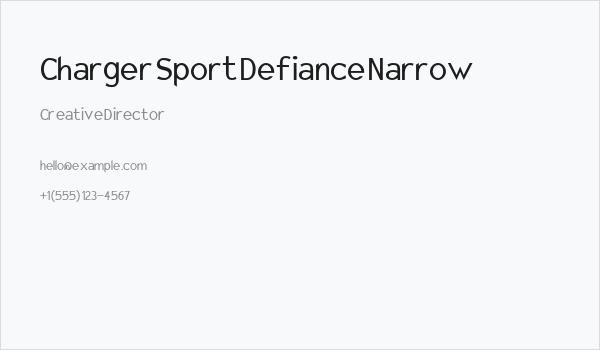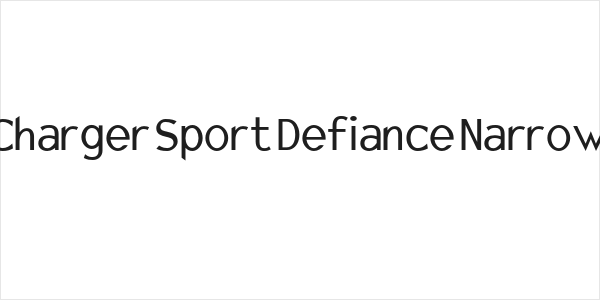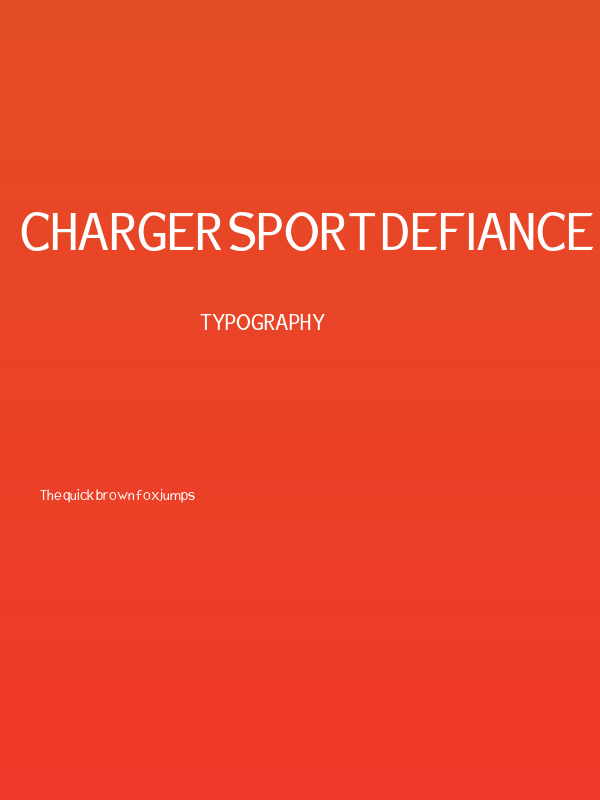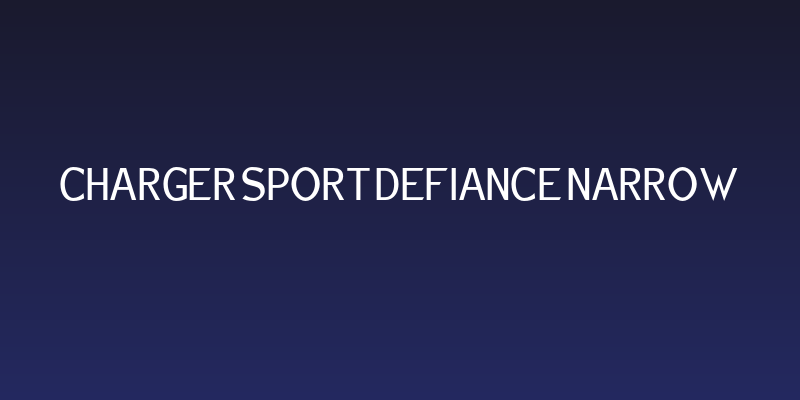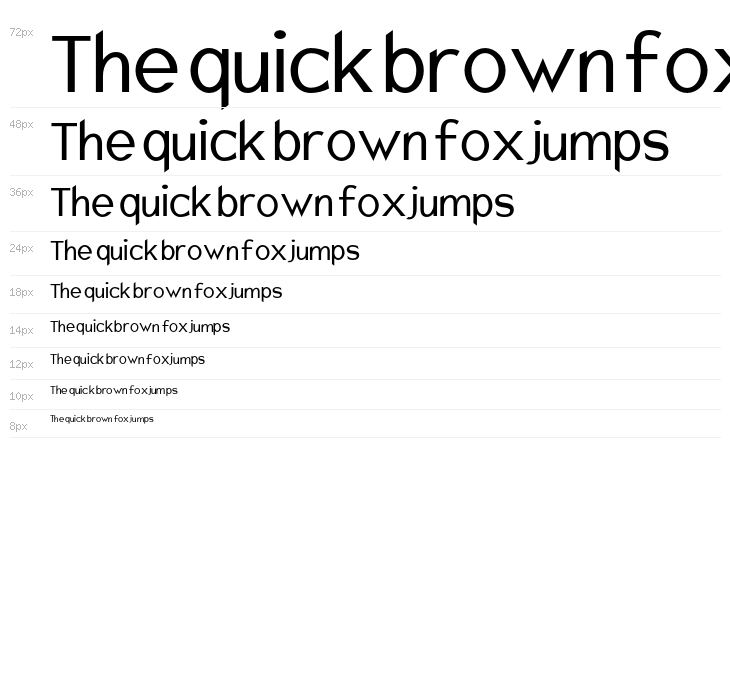
Charger Sport Defiance Narrow Font
Charger Sport Defiance Narrow Description
This font features a sleek and modern design with clean lines and a geometric structure. The uppercase letters are bold and assertive, while the lowercase letters maintain a consistent flow with rounded edges. The numerals are clear and straightforward, ensuring readability. Special characters are well-defined, adding versatility to the font. The overall appearance is professional and contemporary, making it suitable for a variety of applications. Its narrow width allows for efficient use of space without compromising legibility.
| Proposed Projects | Ideal for branding, advertising, web design, and editorial layouts where a modern and professional look is desired. |